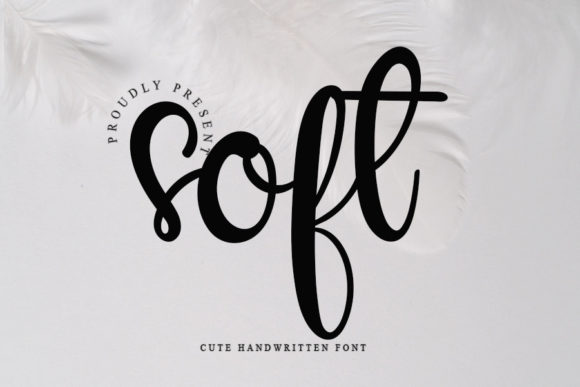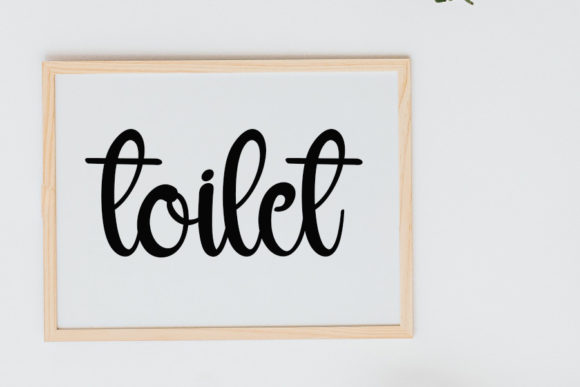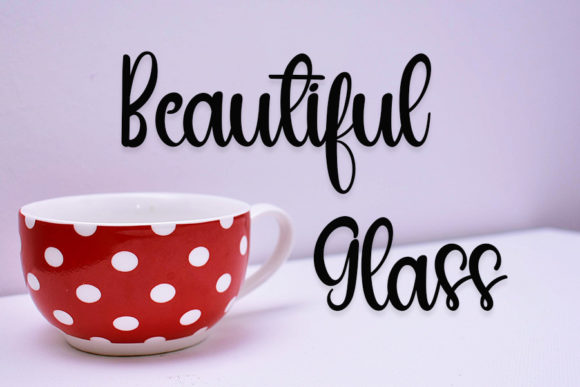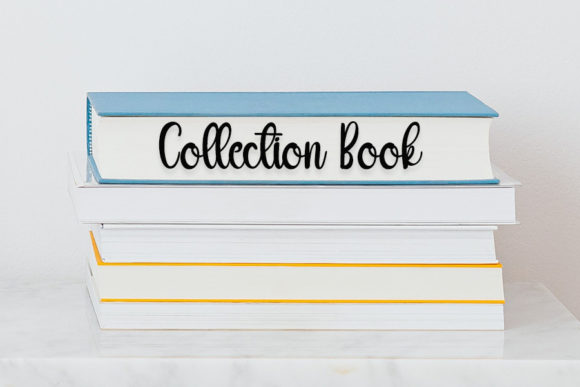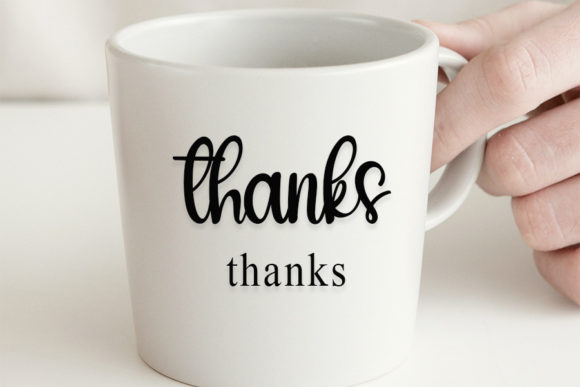
Soft Font
About Soft Font
Soft is a stylish handwritten font that exudes a contemporary atmosphere while maintaining impeccable form, drawing inspiration from timeless classic calligraphy. This font is designed to make a significant impact across a diverse range of contexts and projects.
The combination of modernity and classic calligraphy influences gives Soft its unique charm. Its sleek and elegant strokes reflect a sense of sophistication while remaining approachable and versatile. The balanced design of each character ensures a smooth flow that adds an aesthetic appeal to any design it’s incorporated into.
Soft’s adaptability makes it suitable for a wide variety of applications. Whether you’re working on branding, logo design, wedding invitations, social media graphics, posters, or any other creative project, Soft’s contemporary yet timeless style will stand out and leave a lasting impression.
The font’s name, “Soft,” hints at its gentle and inviting appearance, making it a great choice for projects that require a delicate touch and a sense of elegance. Its versatility allows it to seamlessly complement both modern and traditional design aesthetics, making it a valuable tool for designers looking to add a touch of sophistication to their work.
Overall, Soft is a font that combines the best of both worlds – modern aesthetics and classic calligraphic influences – resulting in a typeface that is sure to elevate your designs and captivate your audience.